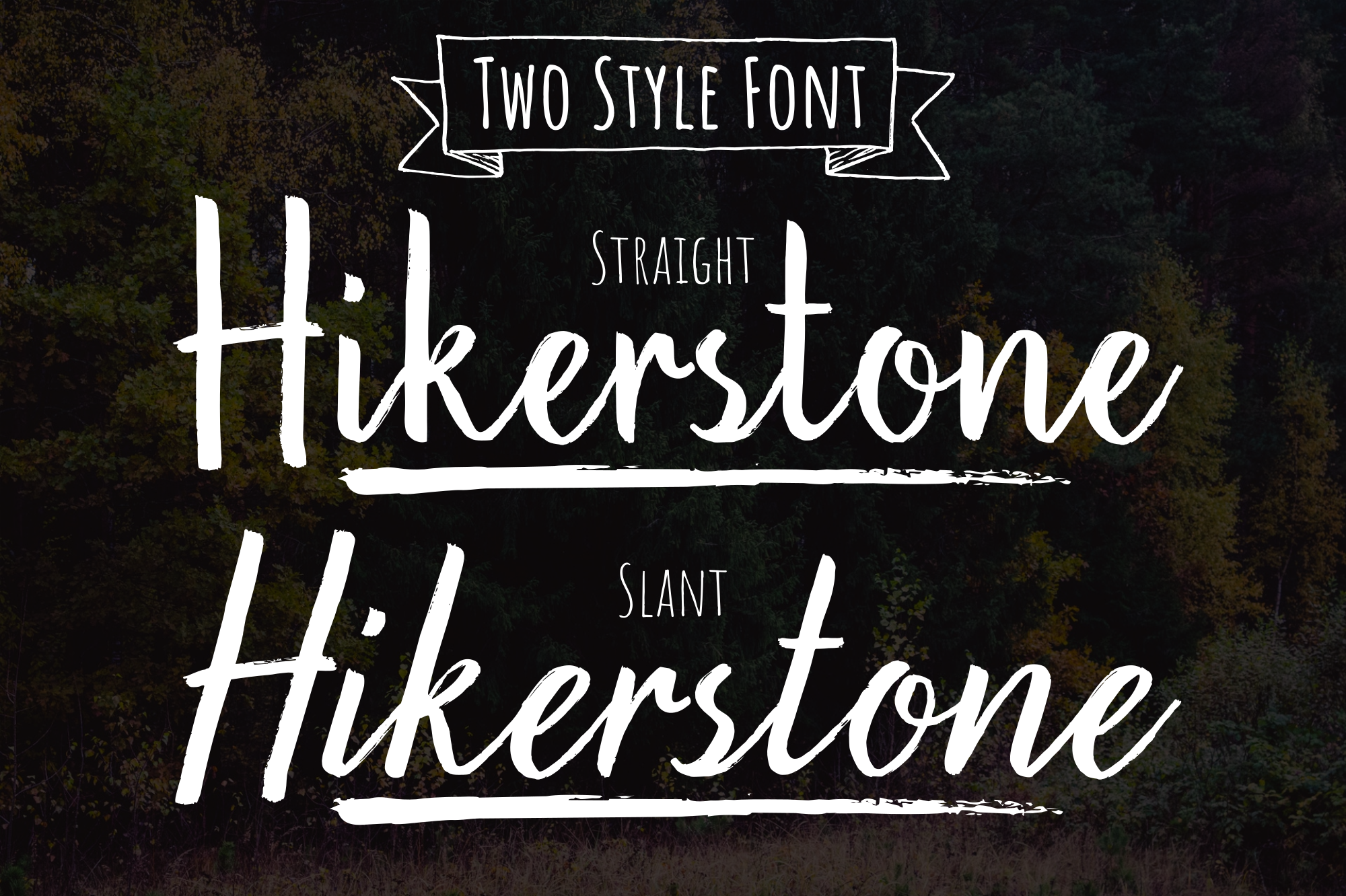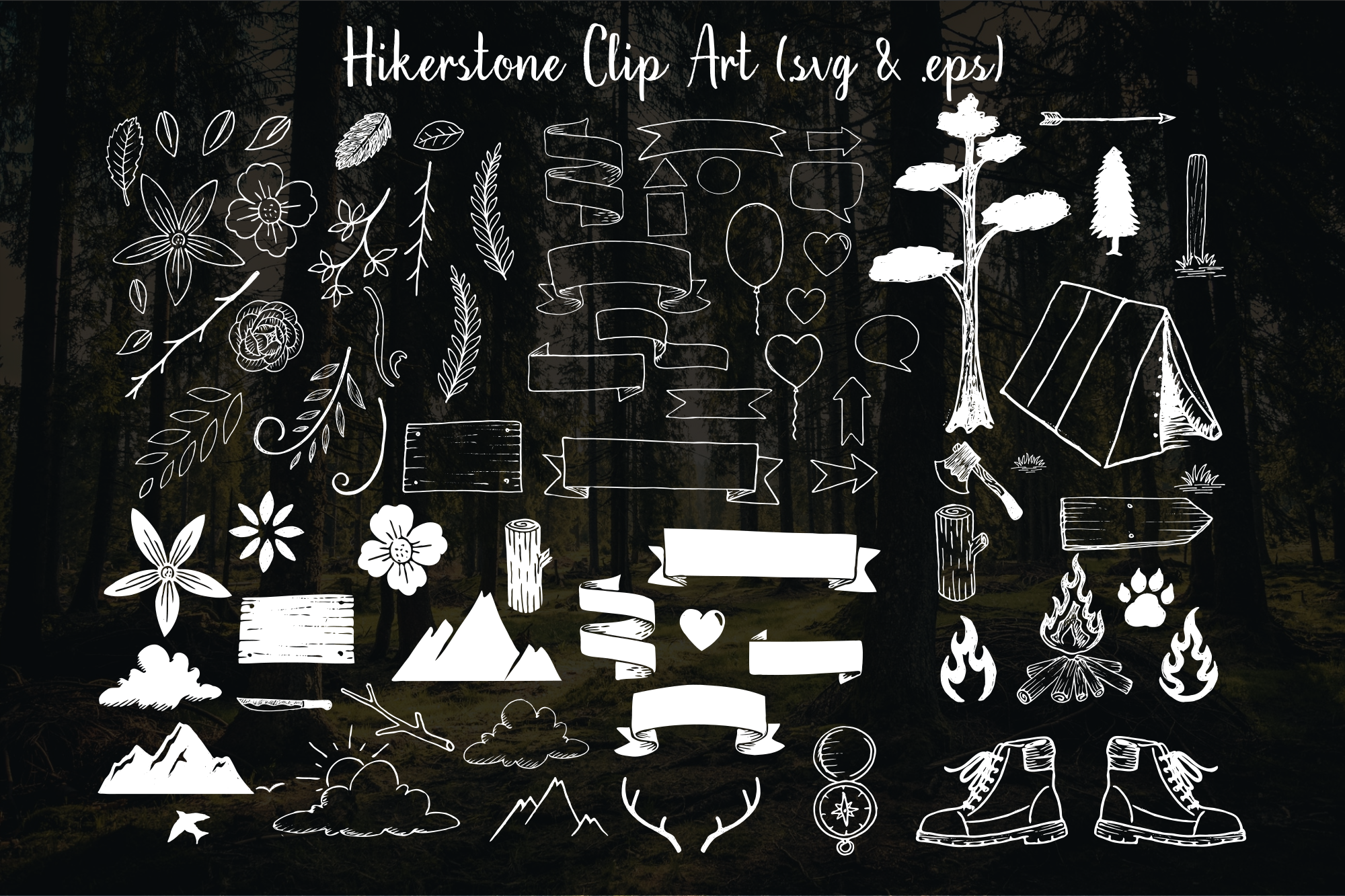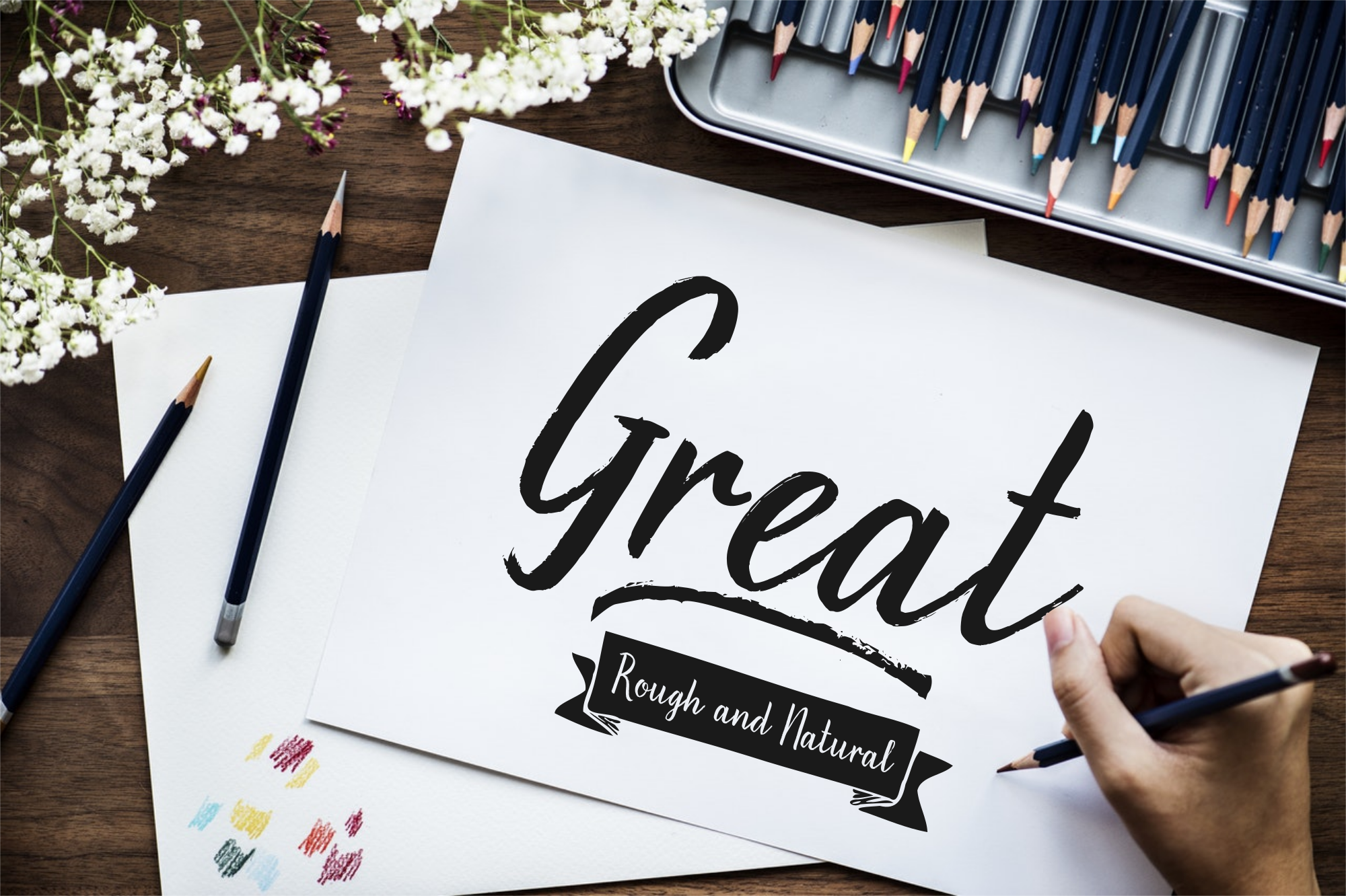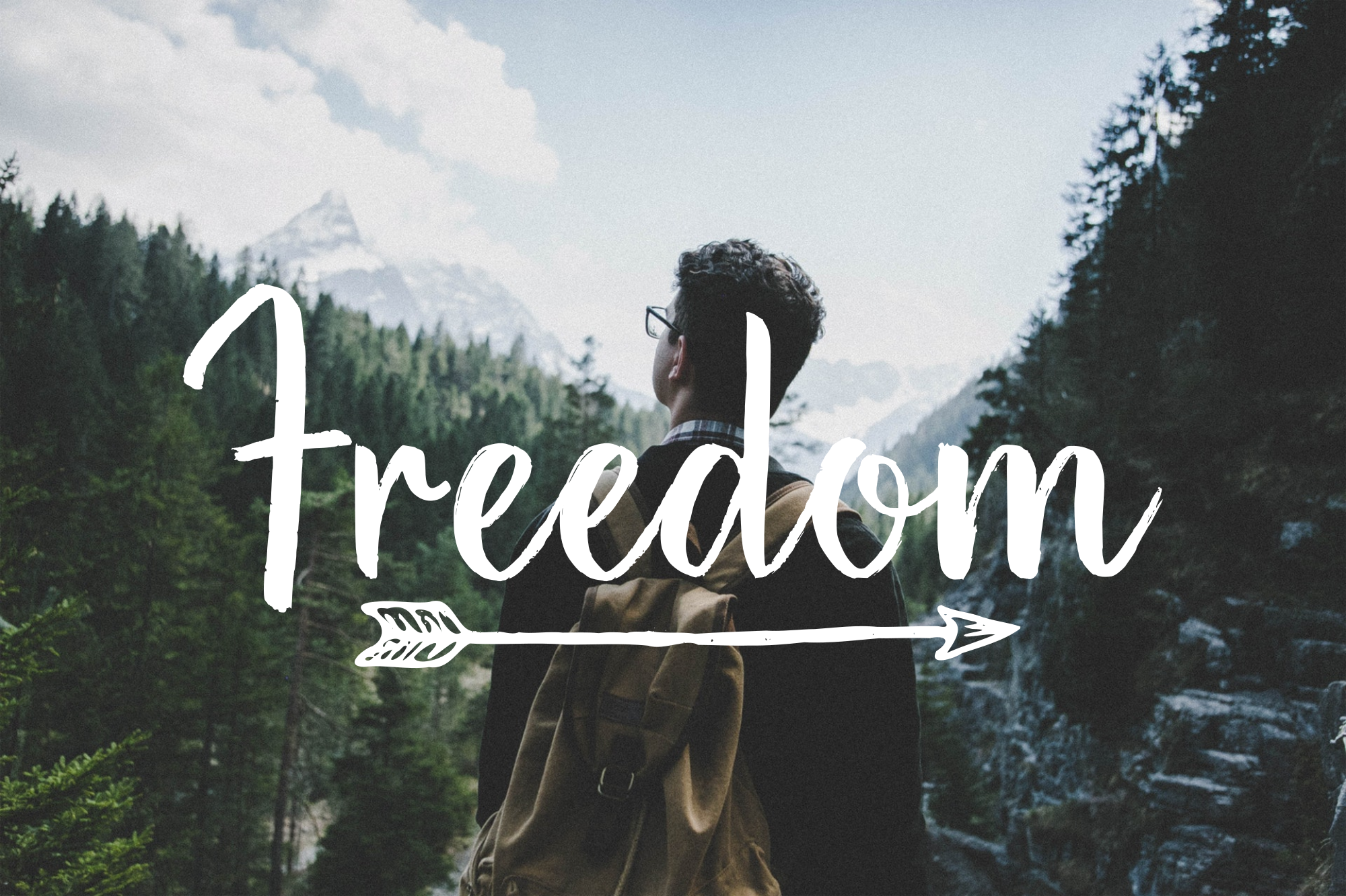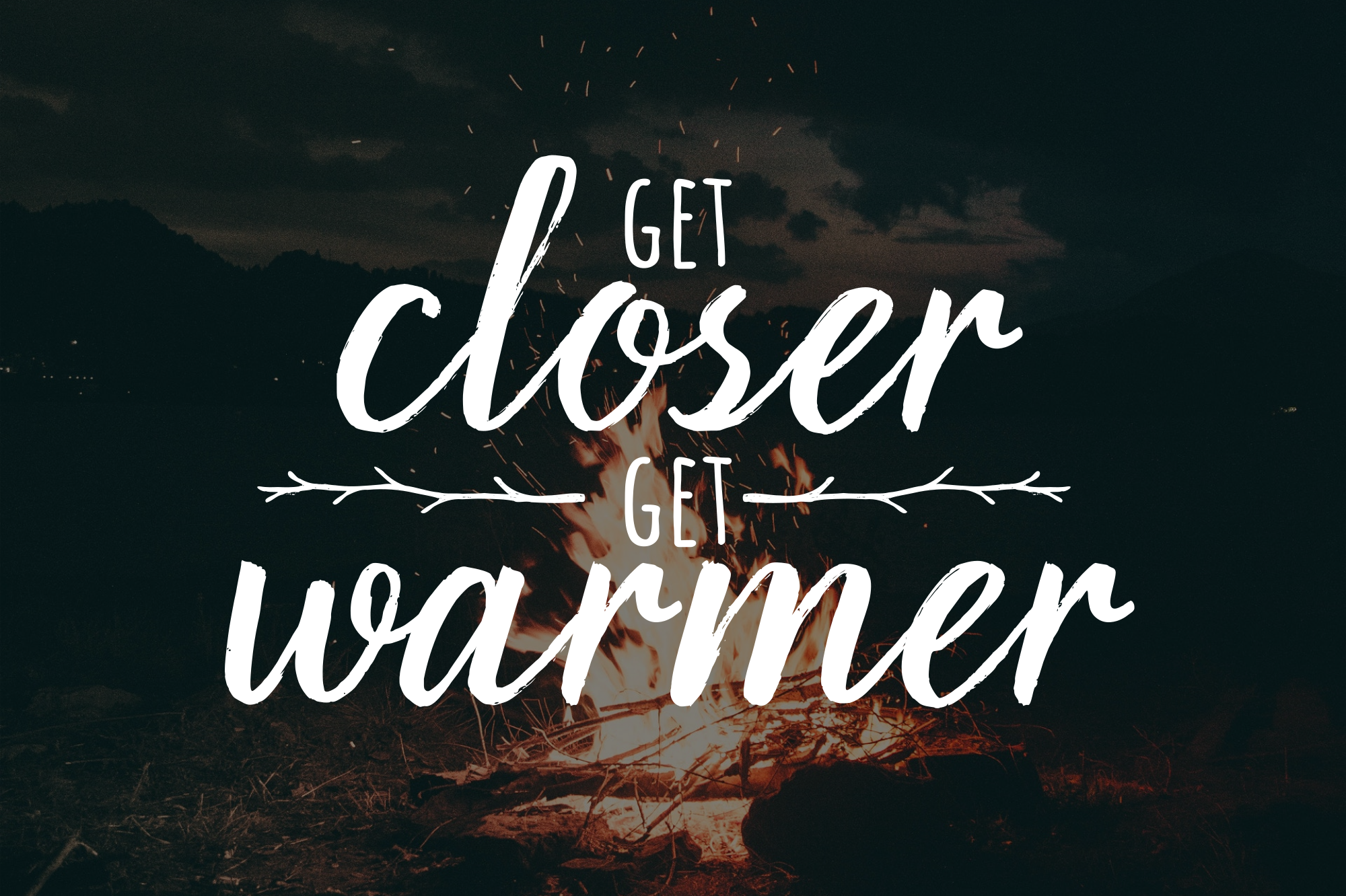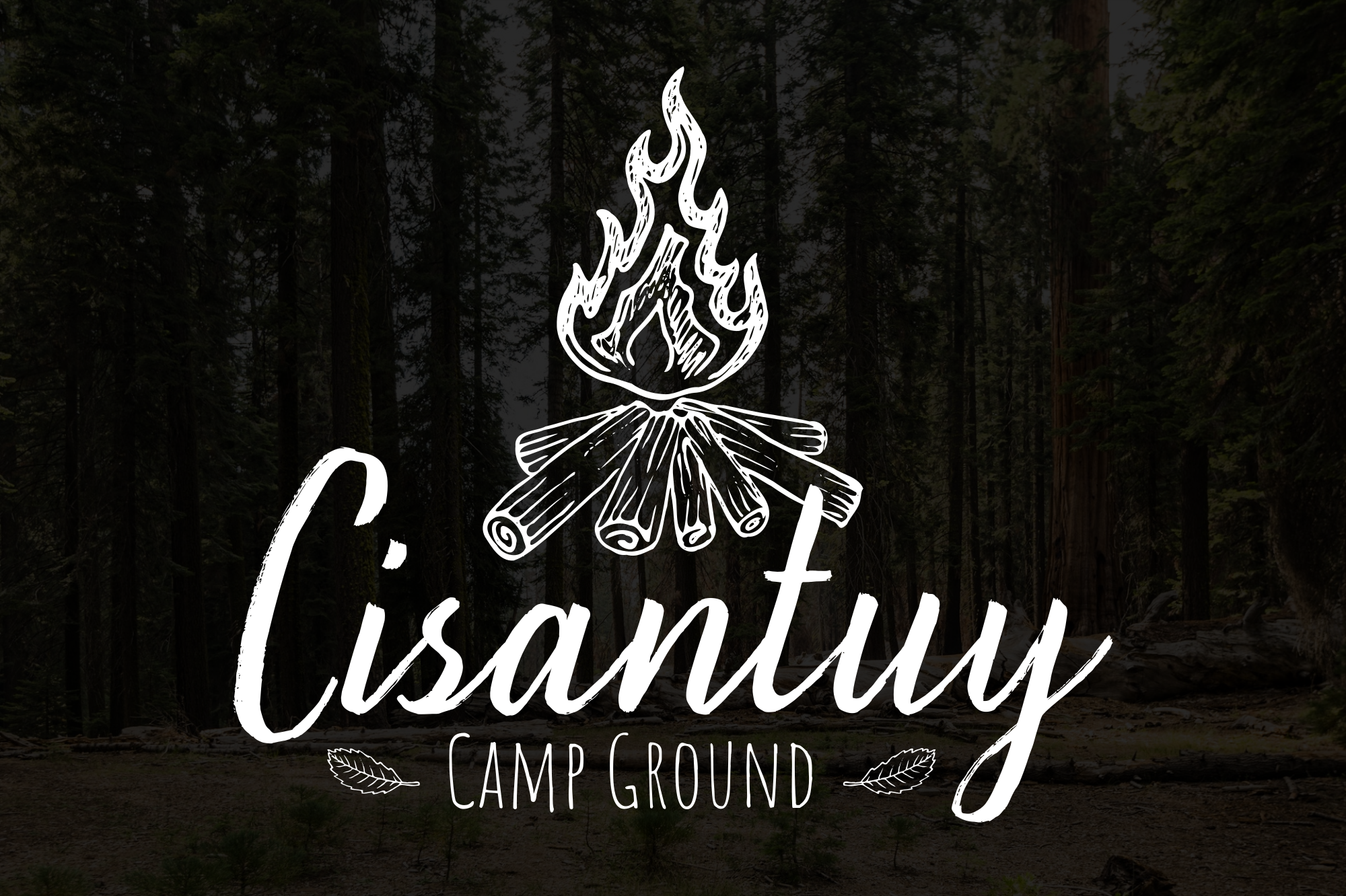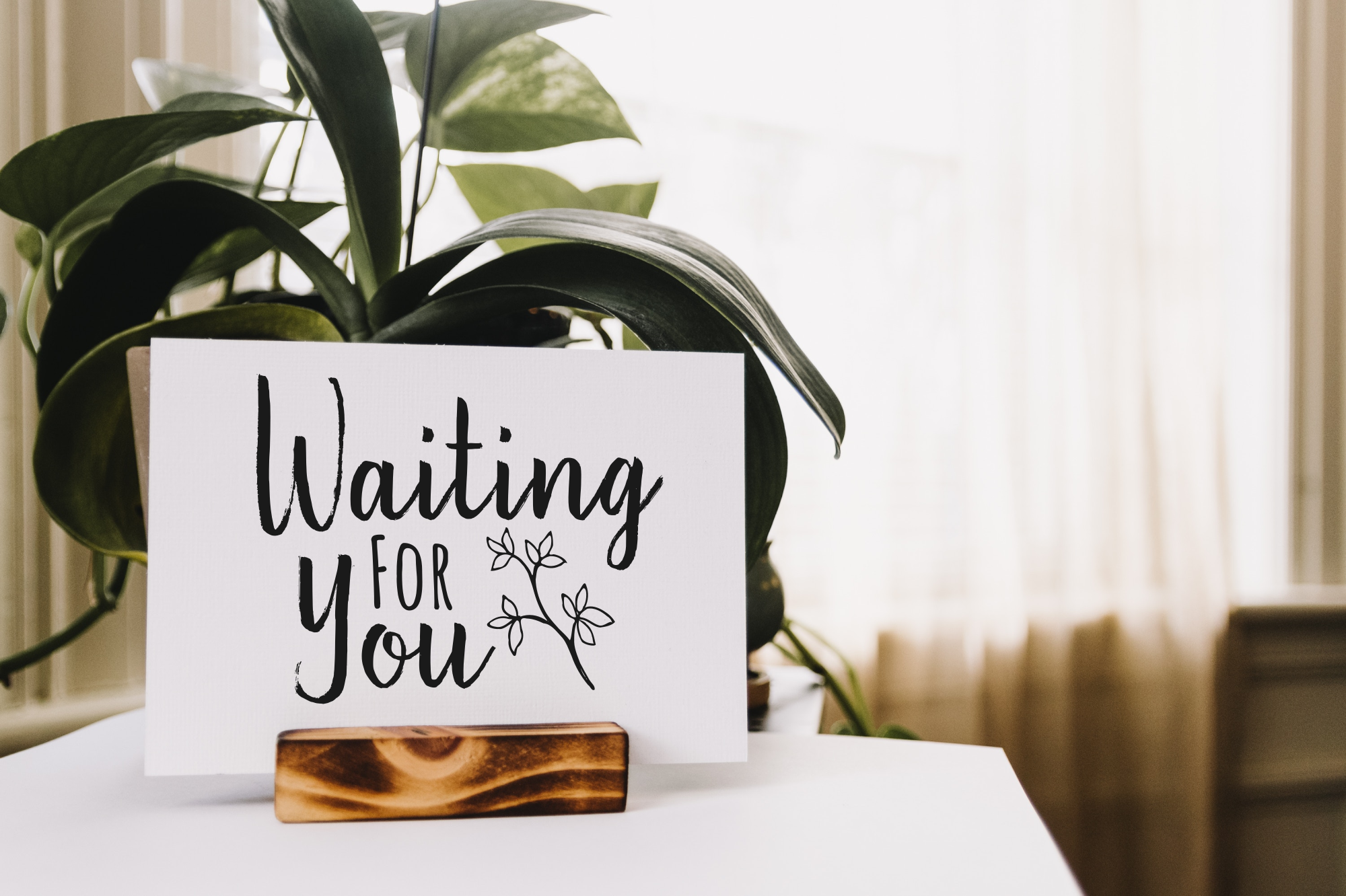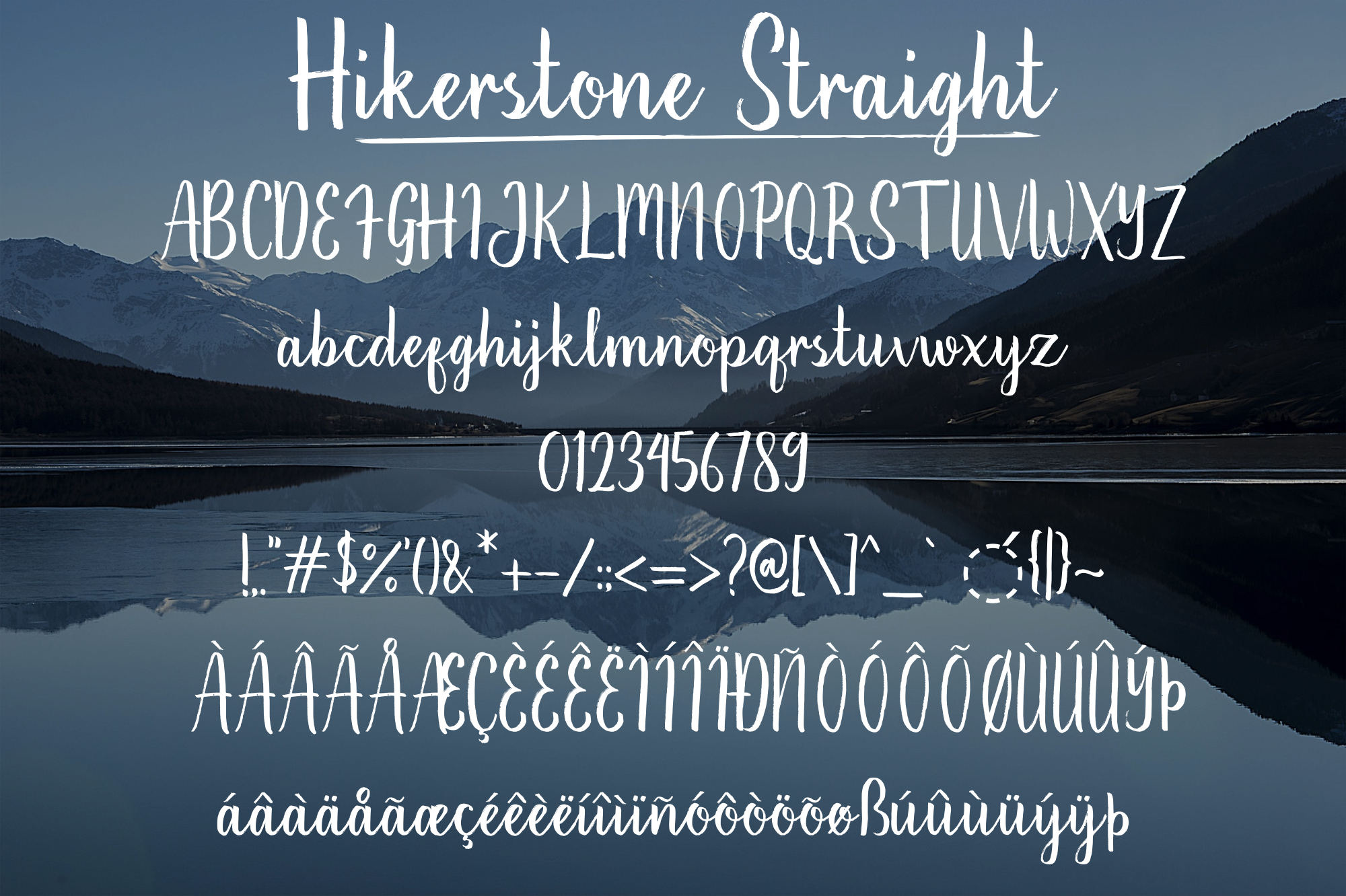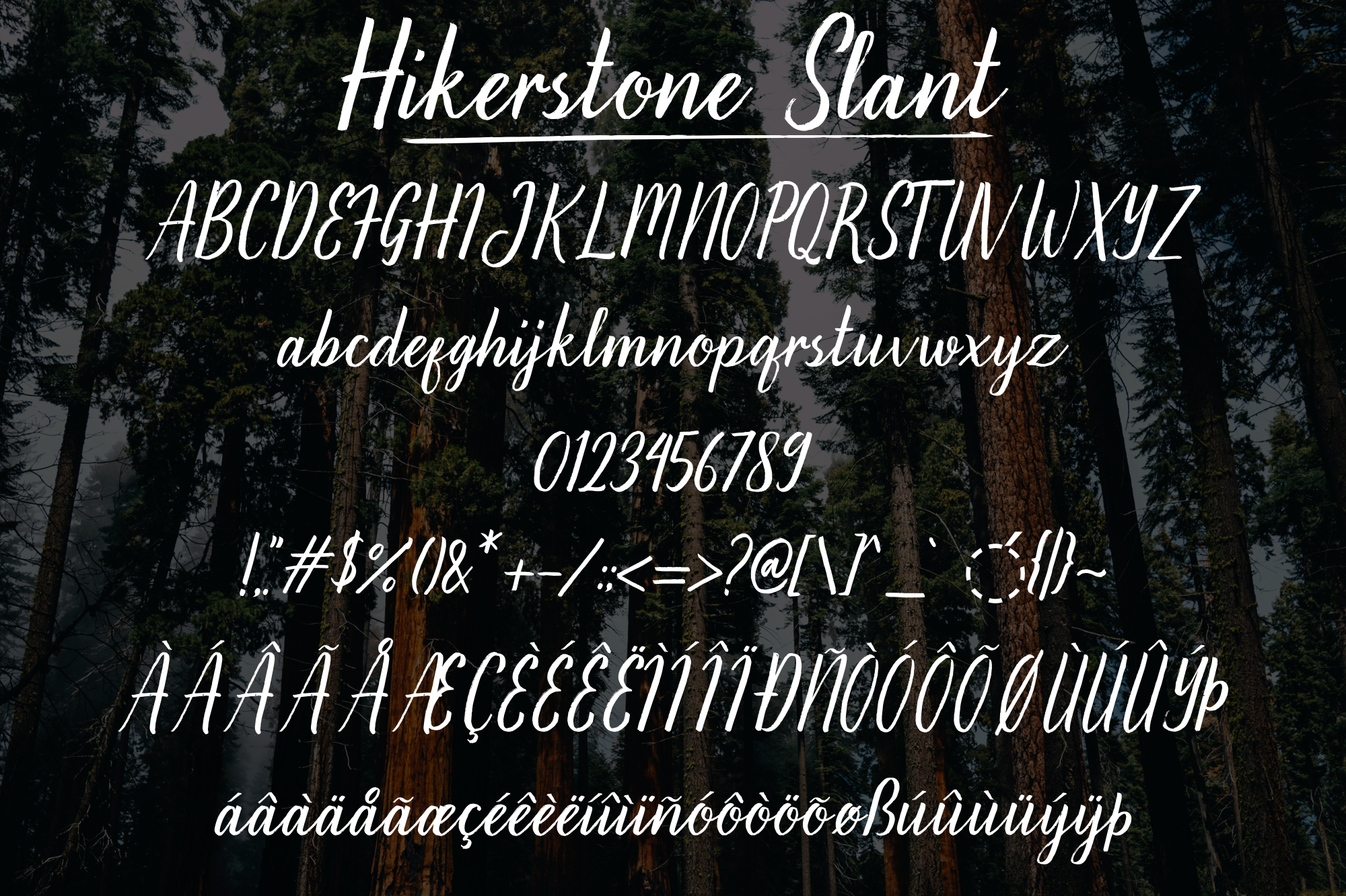
Hikerstone - Font with Extras
Hikerstone is a strong family with a rough and natural look that works for logos, crafts, and blogs, but can also be used to make a striking headline. It includes three variations: slant, straight, and swash.
Hikerstone is a strong family with a rough and natural look that works for logos, crafts, and blogs, but can also be used to make a striking headline. It includes three variations: slant, straight, and swash. Included as a bonus are stunning cliparts.
Hikerstone with extras
Logos, branding, packaging, posters, and editorial applications